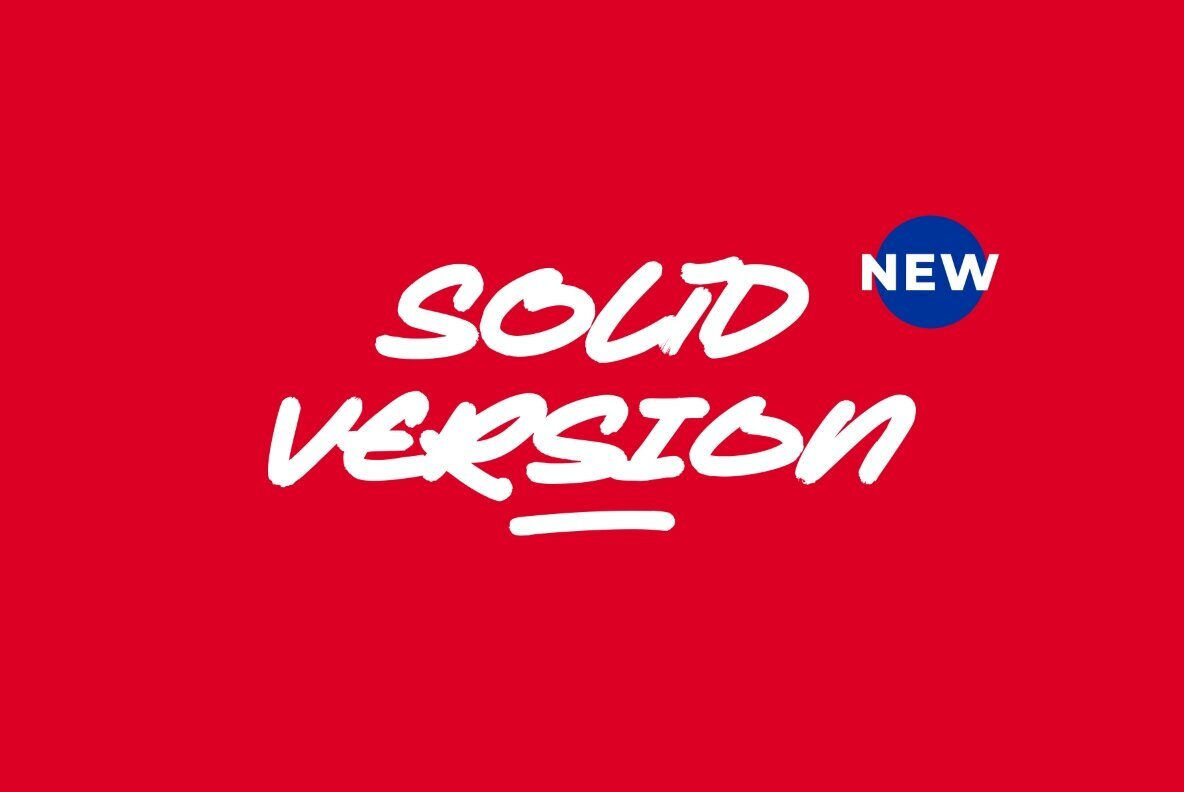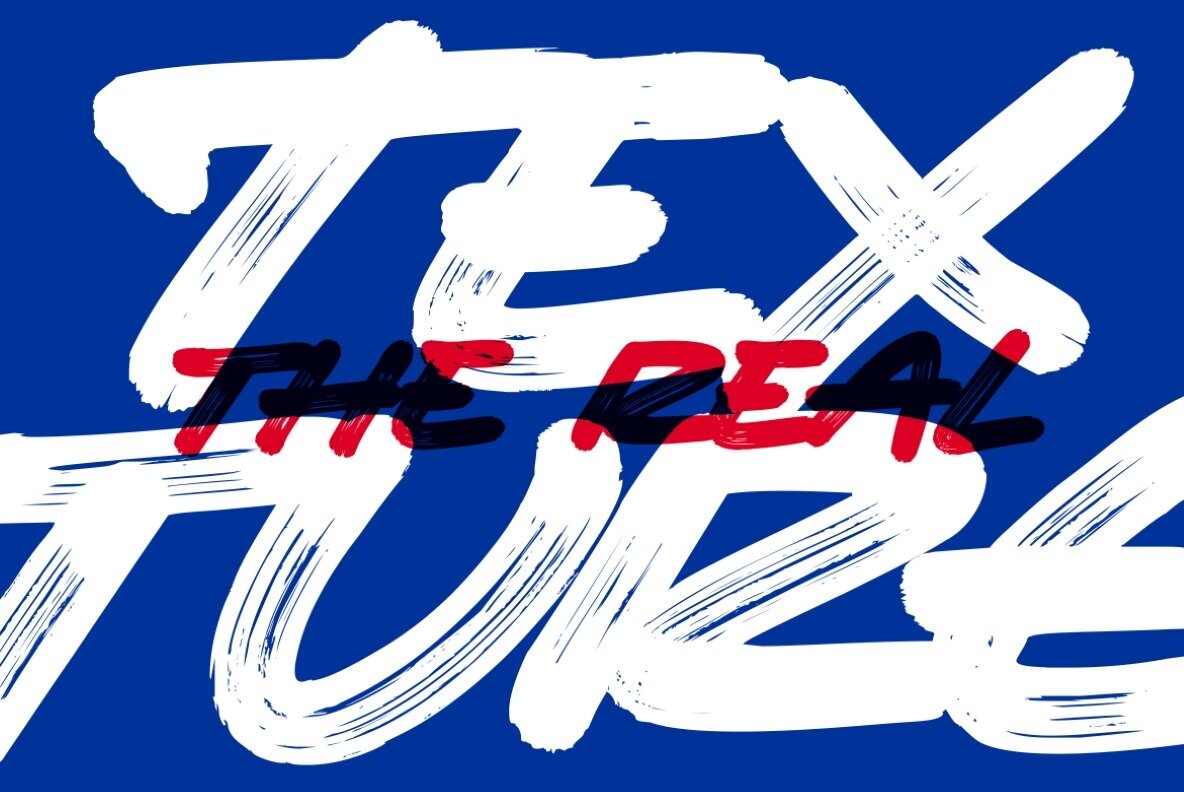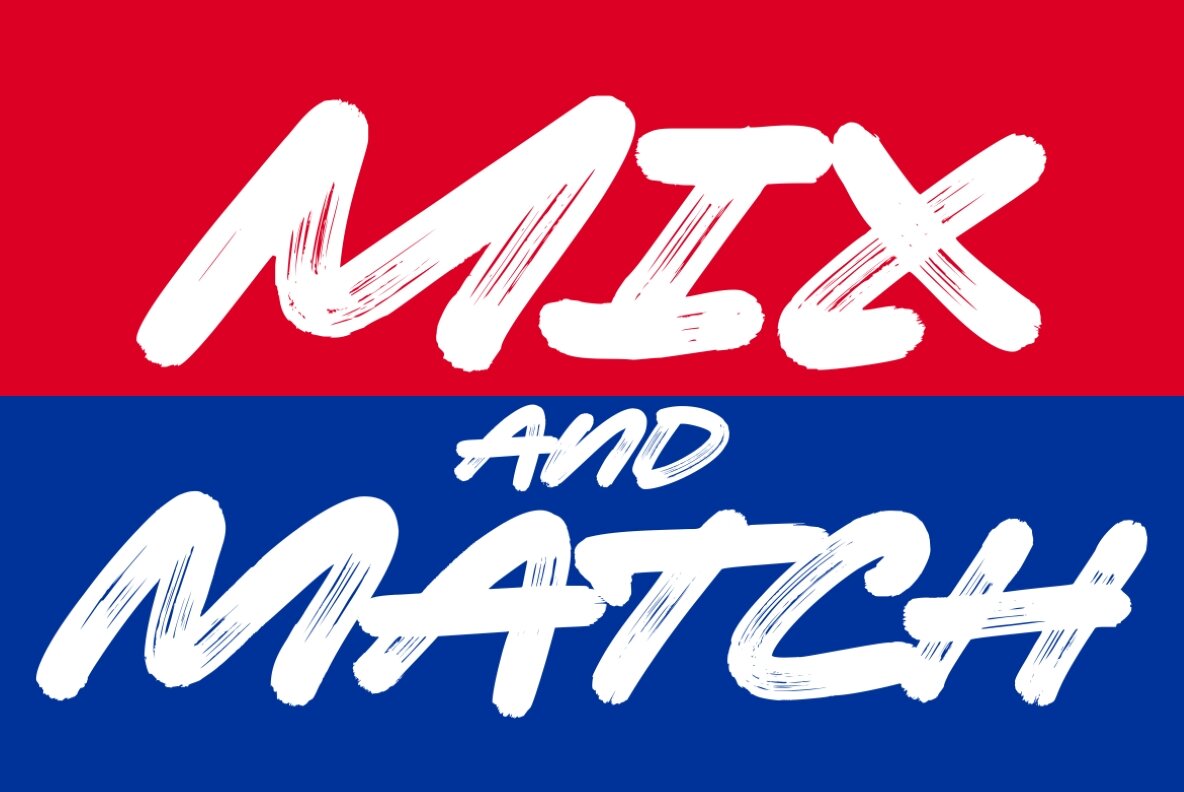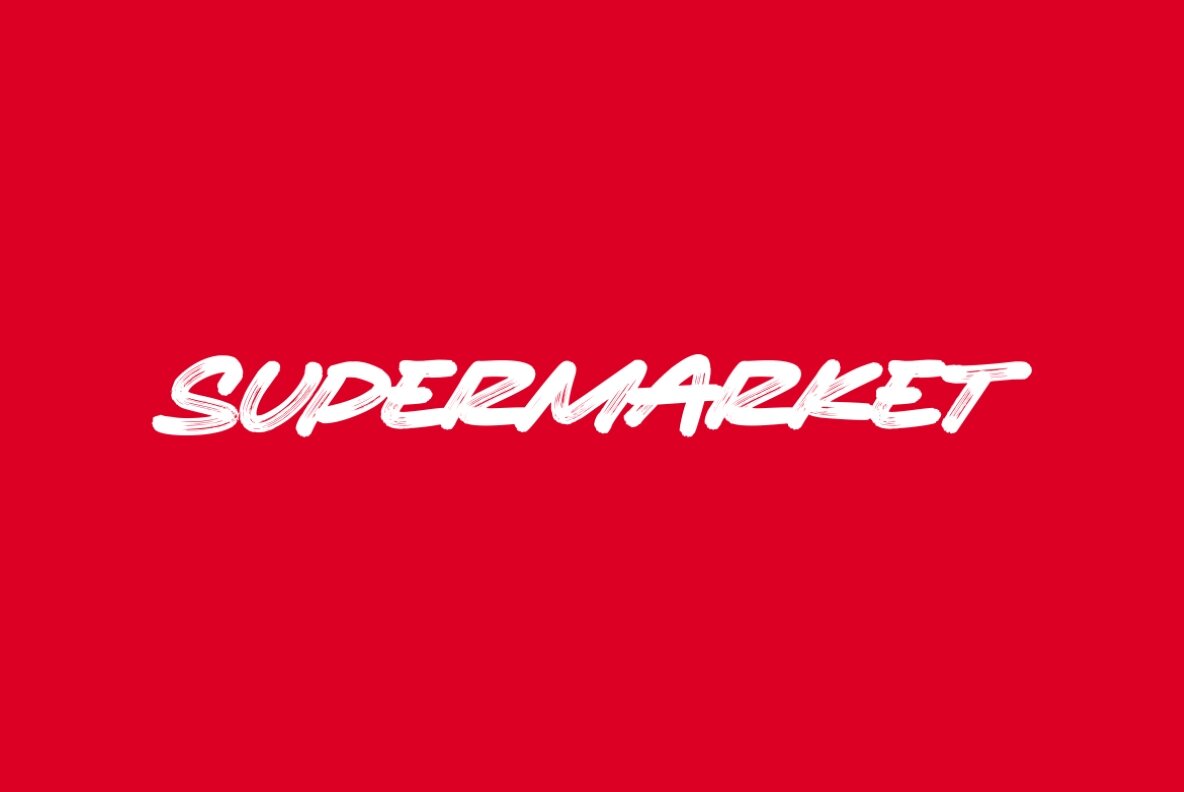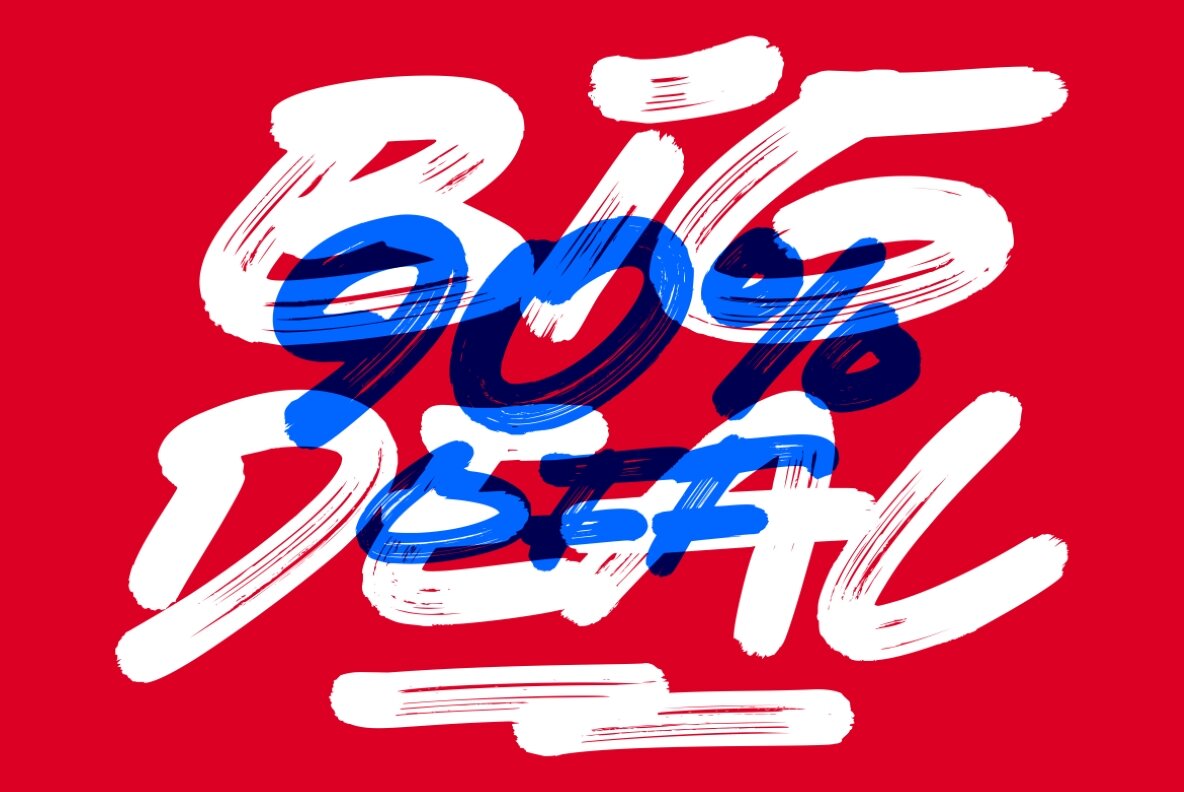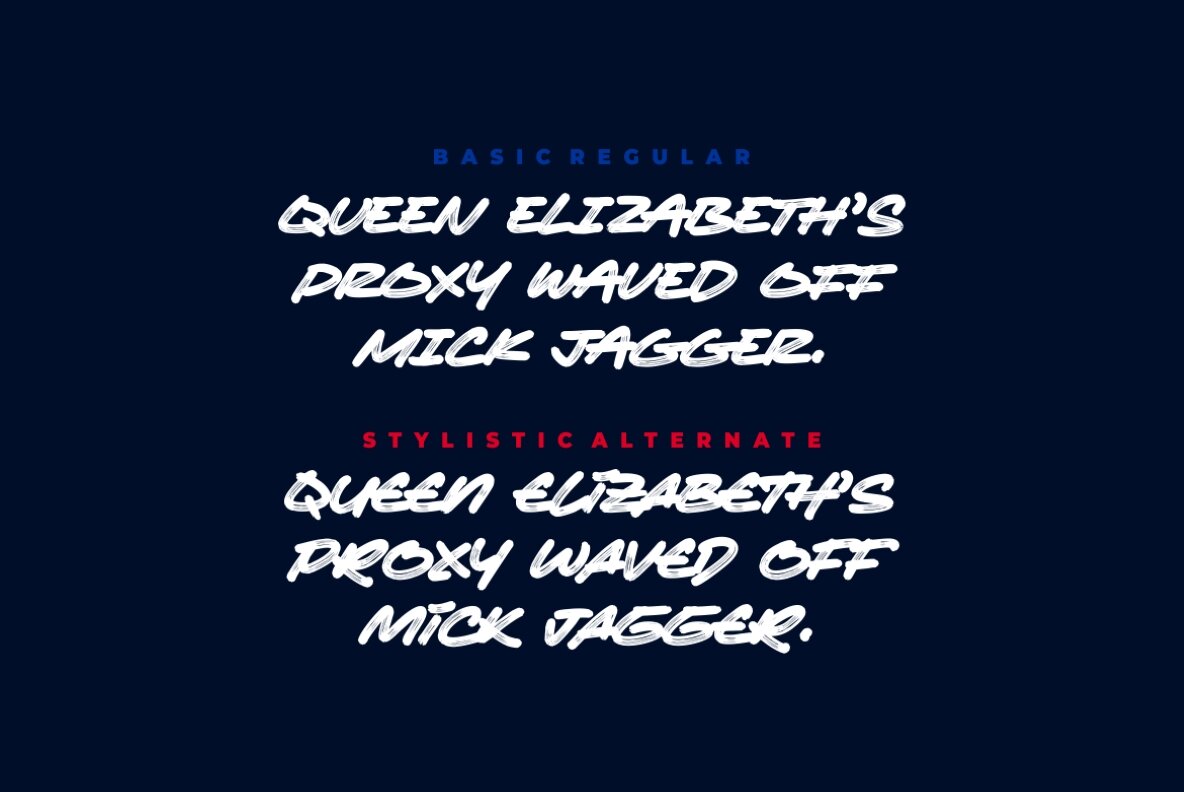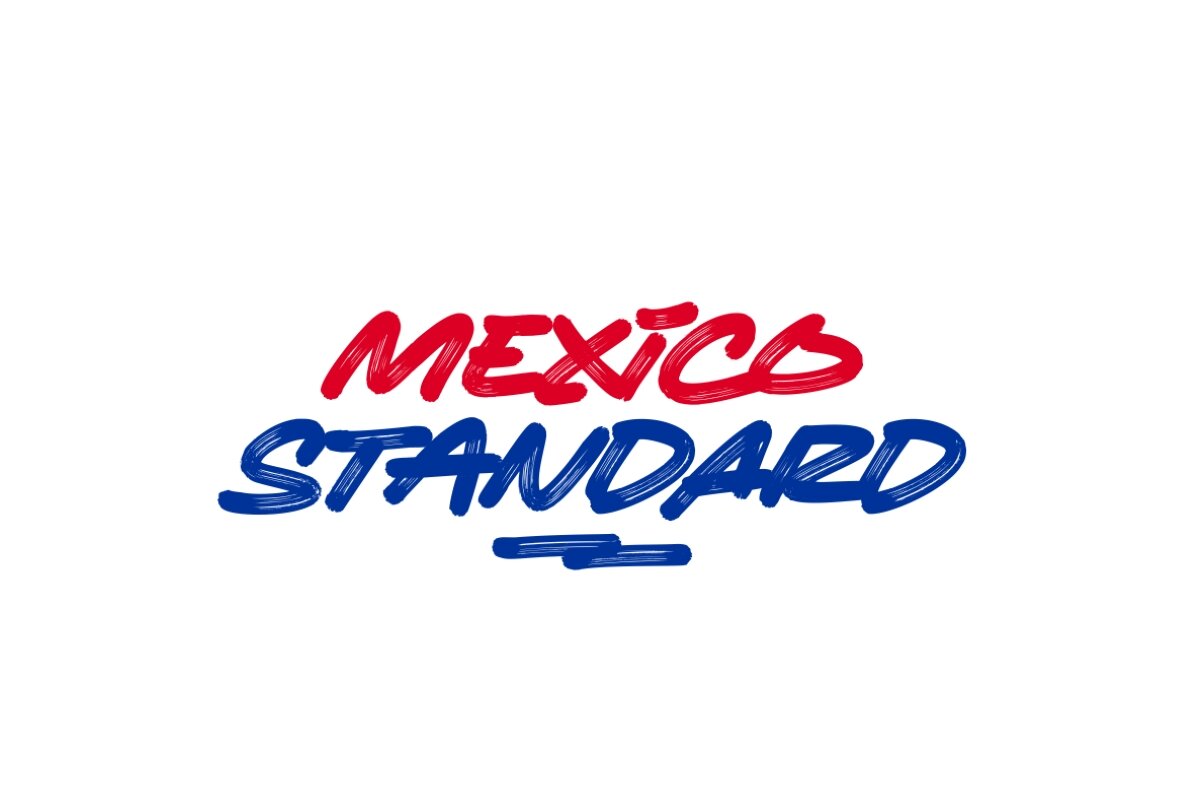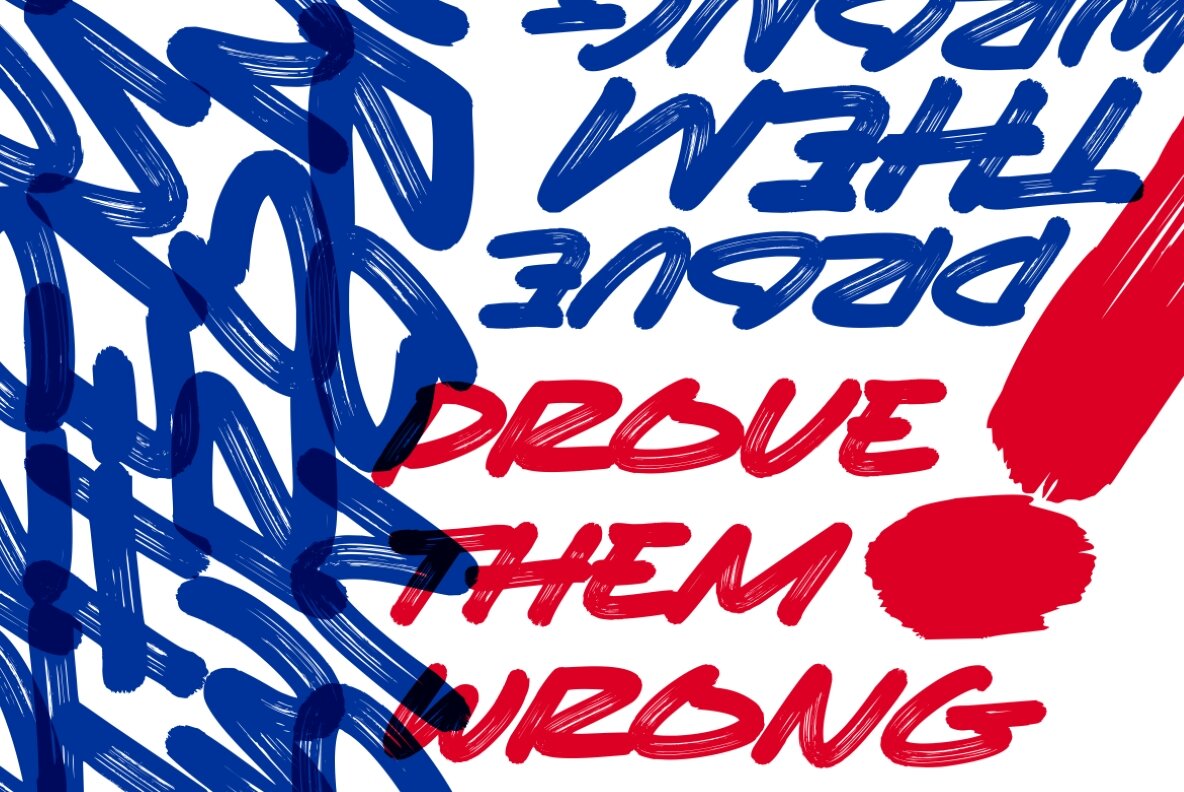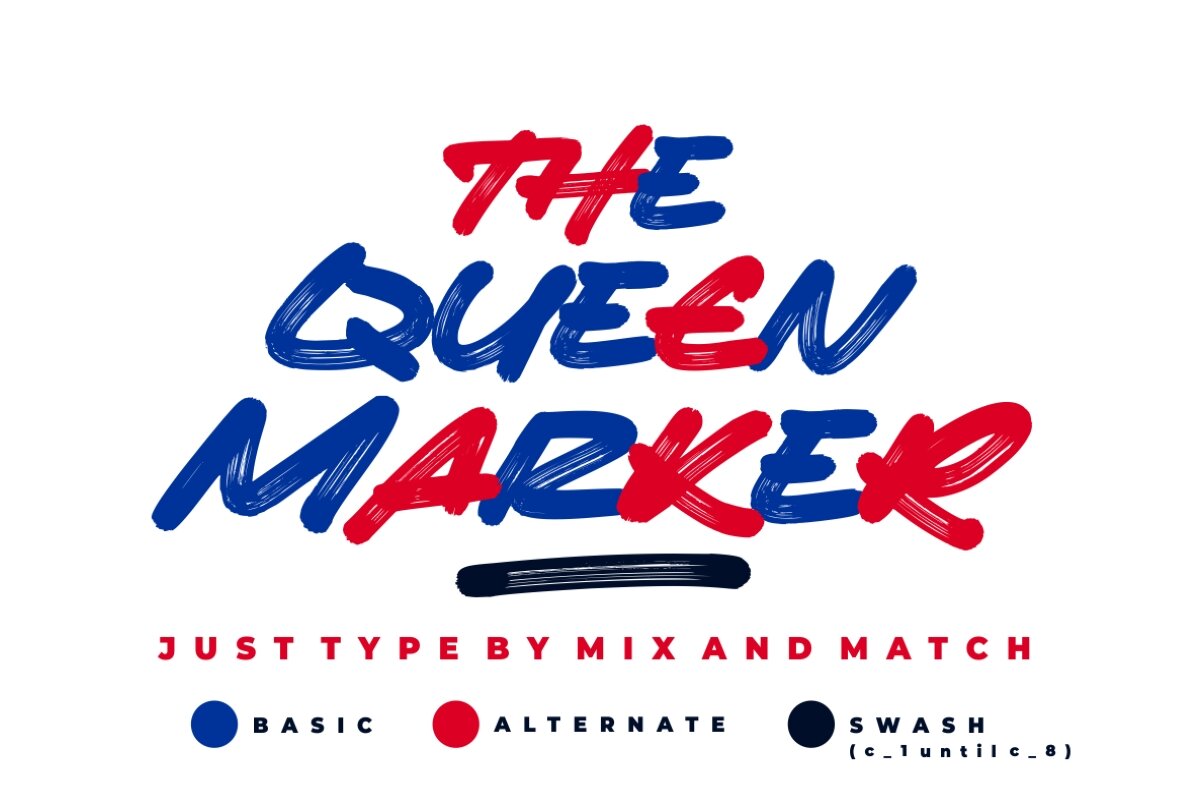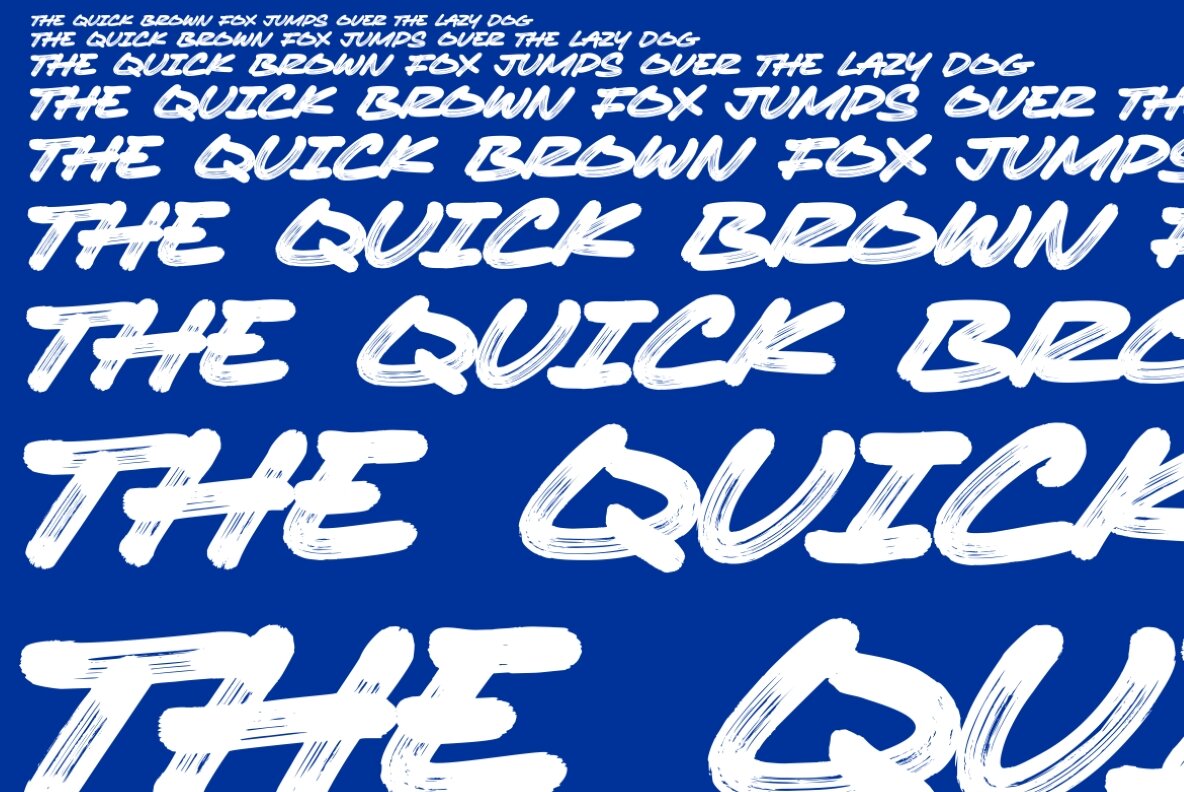
The Queen Marker Font
The Queen Marker by Azetype Studio is a Brush Marker Font featuring a stylistic alternate, designed with the perfect blend of each character. You can creatively mix and match to achieve unique combinations. The font appears authentic and is suitable for various projects. Each glyph offers distinct individuality, providing dynamic and pleasing proximity when paired with others. The visual presentation of The Queen Marker showcases its stunning application in design projects. The Queen Marker also includes underline swashes; simply type c_1 through c_10 to access all variations. Happy Creating!The Queen Marker: Dynamic Brush Marker Font
Versatile Design Applications
Additional Features